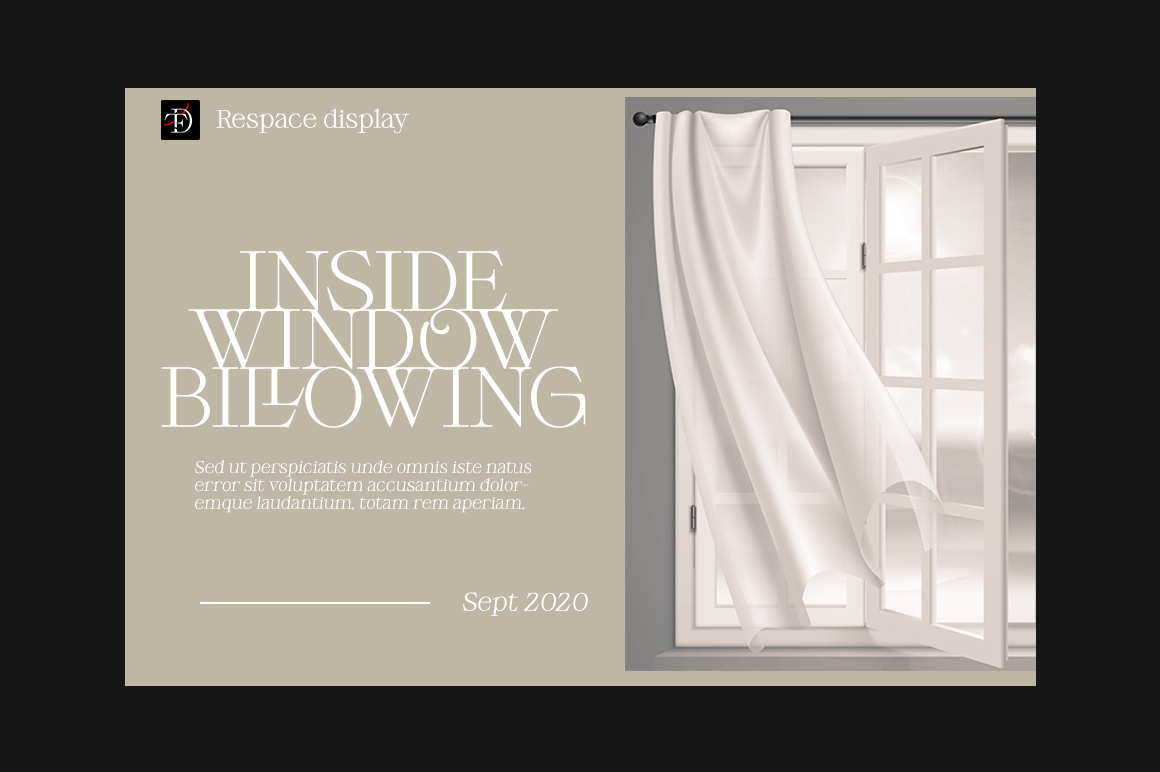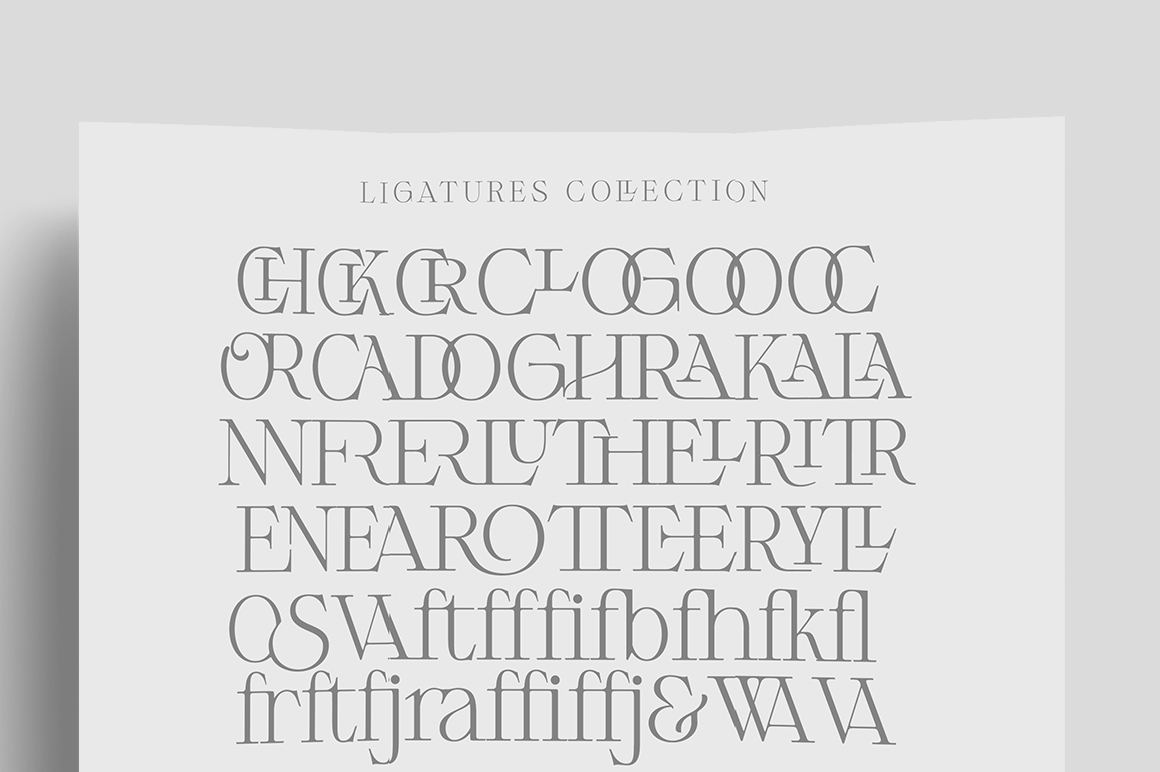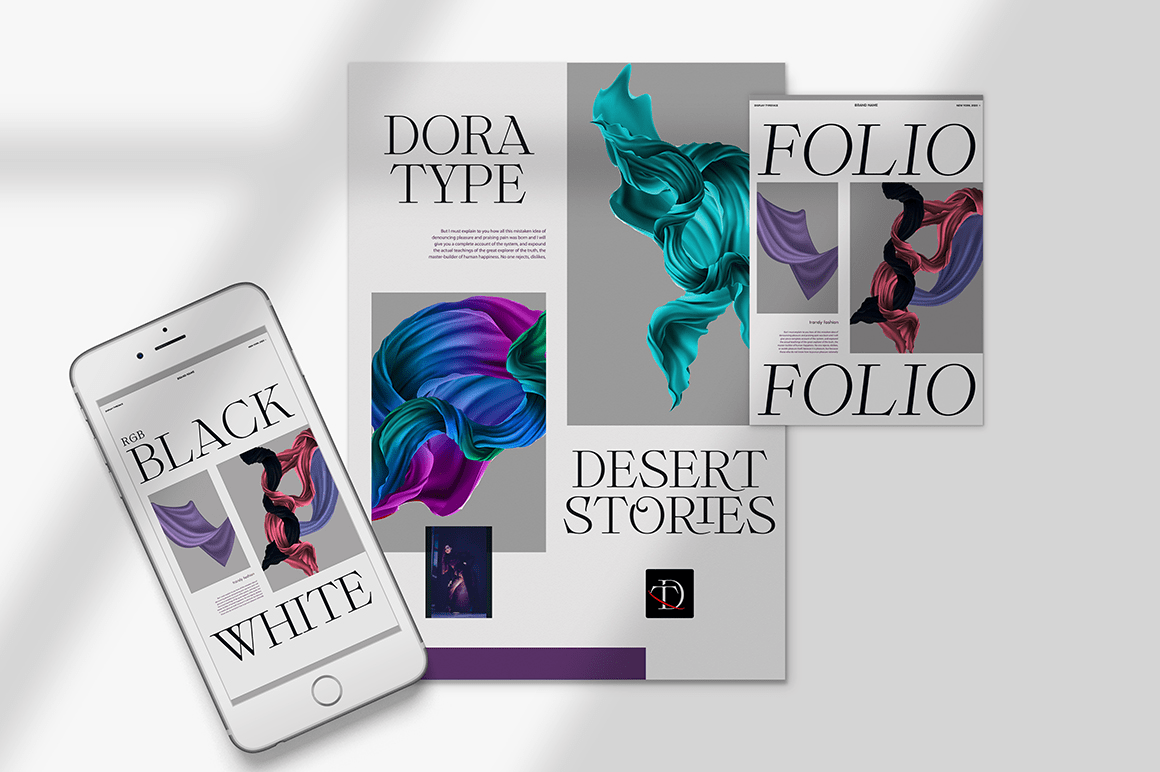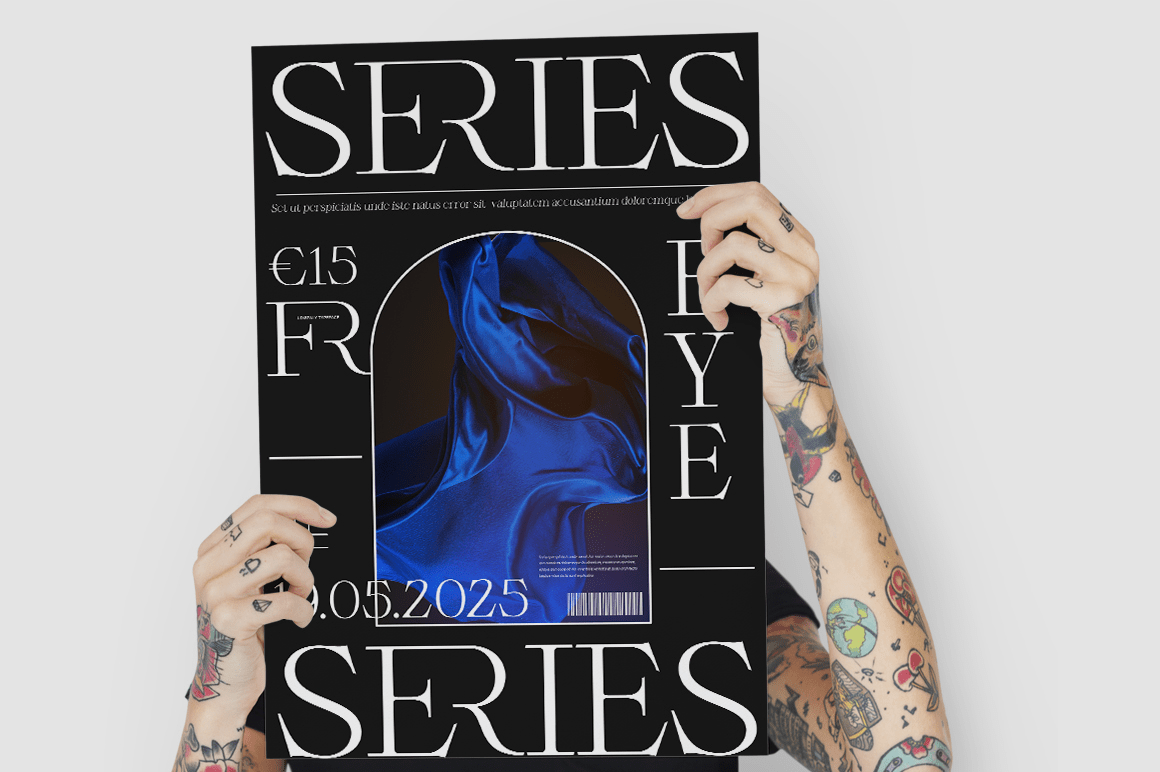
About Respace
Respace – is a strong neoclassical serif font family with high contrast, cool, unique style and appearance with alternative fonts, ligatures and multilingual support. This font idea has a variety of references, from vintage to classic to the modern era,…